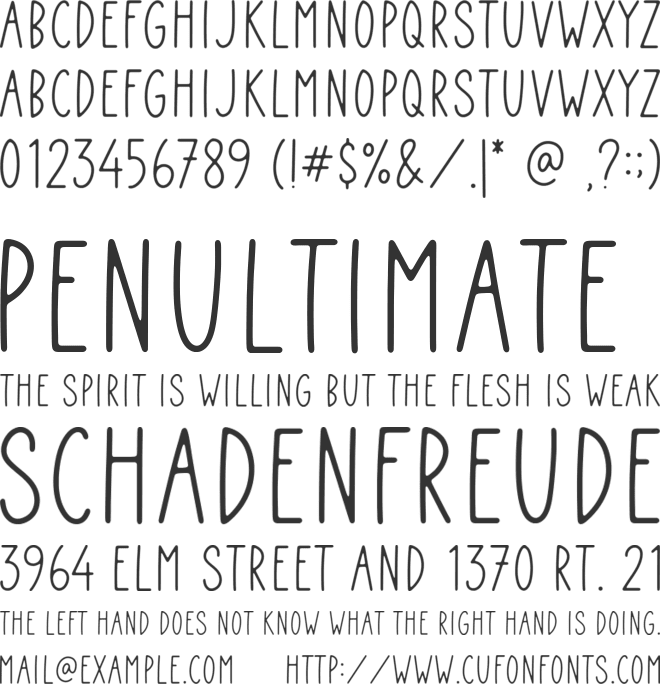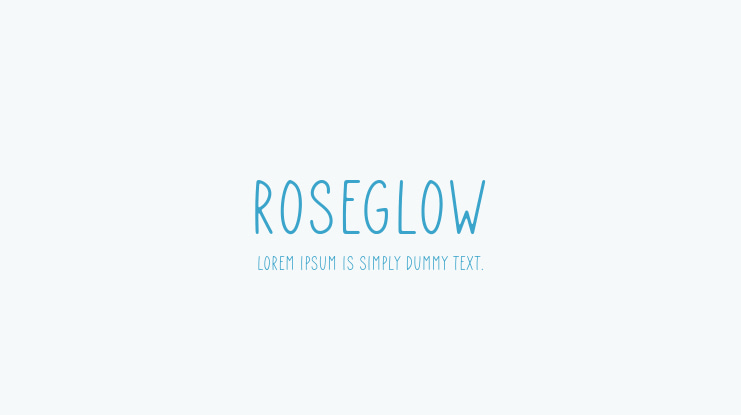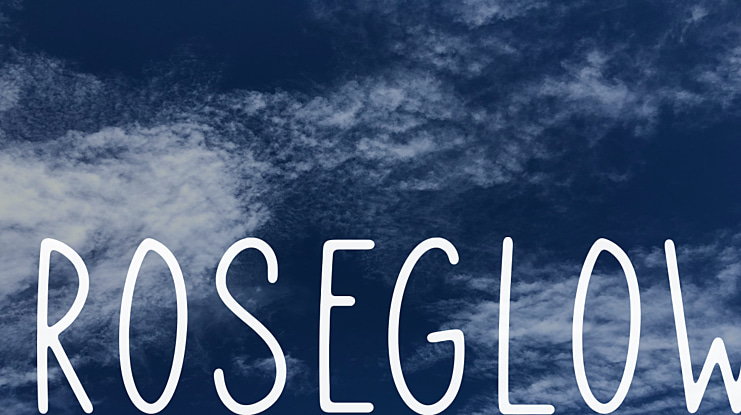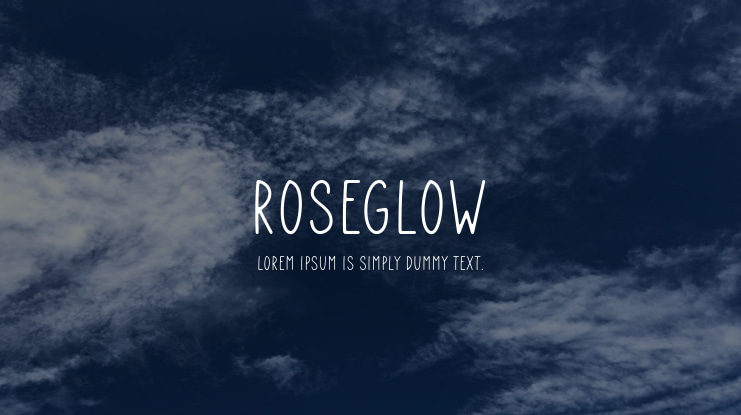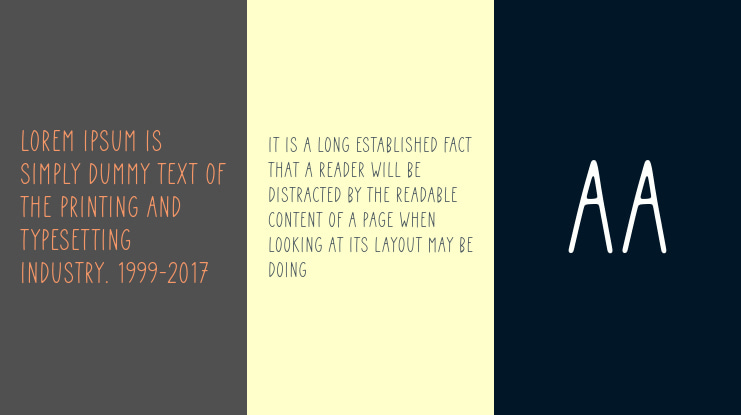
Roseglow is a Handwritten fun font that is modern and fresh, and will bring a warm and inviting feel to your business. Take advantage of the fonts and experience the magic for yourself.
Roseglow is perfect for product packaging, branding project, megeenazine, social media, wedding, or just used to express words above the background.
Roseglow Font Features premium :
-Full Set of standard alphabet and punctuation
– extra set doodles font
– Roseglow also multilingual support.